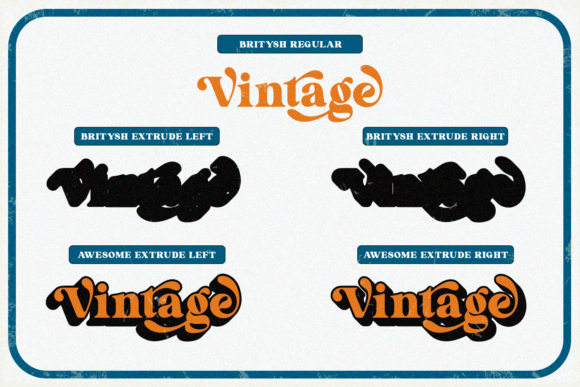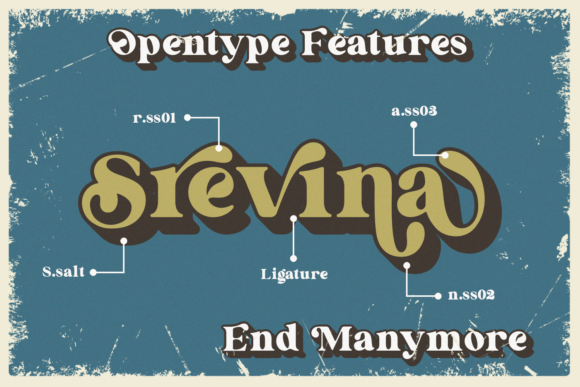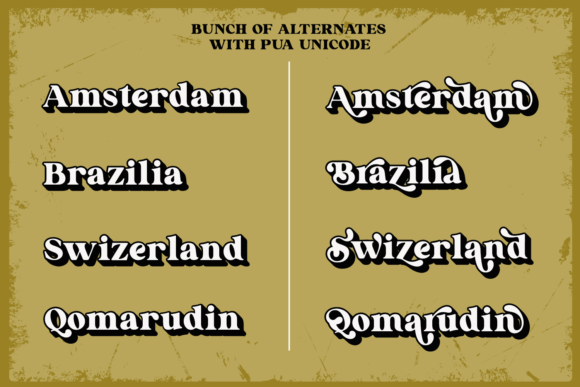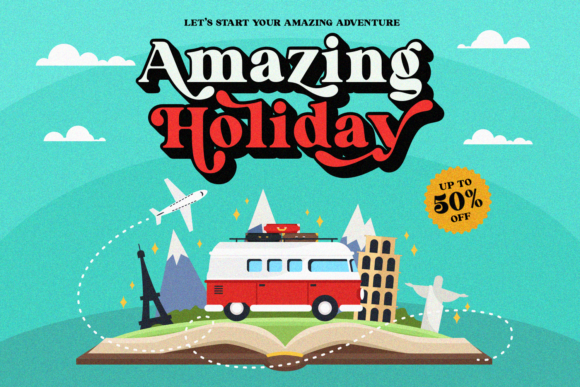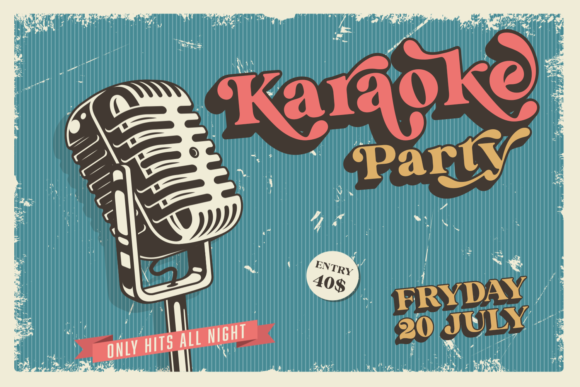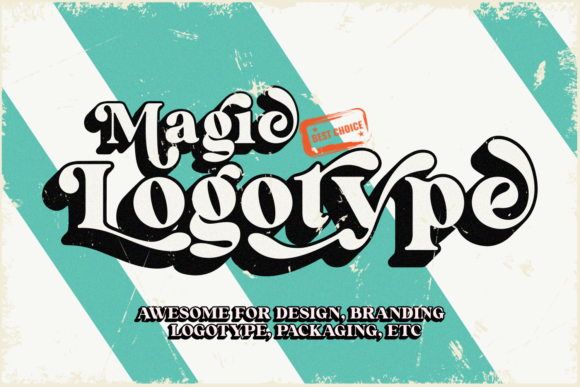
Introducing Britysh Font: A Bold and Retro Styled Display Font
Are you looking for a font that can add a touch of nostalgia and personality to your designs? Look no further than Britysh Font, a bold and retro styled display font that’s perfect for designers and crafters alike. In this article, we’ll take a closer look at Britysh Font, its features, and how you can use it to elevate your designs.
What is Britysh Font?
Britysh Font is a bold and retro styled display font that’s designed to make a statement. Its strong, confident, and dynamic design makes it perfect for adding a touch of nostalgia to your designs. Whether you’re working on a branding project, a poster, or a social media graphic, Britysh Font is sure to grab attention.
Key Features of Britysh Font
- Bold and Retro Style: Britysh Font has a bold and retro style that’s reminiscent of classic designs from the past.
- PUA Encoded: Britysh Font is PUA (Private Use Area) encoded, which means you can access all glyphs and swashes with ease.
- Dynamic and Confident: Britysh Font reads as strong, confident, and dynamic, making it perfect for designs that need to make a statement.
- Nostalgic Character: Britysh Font has a nostalgic character that can add a touch of personality to your designs.
How to Use Britysh Font
Britysh Font is perfect for a variety of design projects, including:
- Branding: Use Britysh Font to create bold and eye-catching logos that make a statement.
- Posters: Add a touch of nostalgia to your posters with Britysh Font’s retro style.
- Social Media Graphics: Use Britysh Font to create engaging social media graphics that grab attention.
- Signage: Britysh Font is perfect for creating eye-catching signage that stands out.
Benefits of Using Britysh Font
There are many benefits to using Britysh Font in your designs, including:
- Unique and Eye-Catching: Britysh Font is a unique and eye-catching font that can help your designs stand out.
- Nostalgic Feel: Britysh Font has a nostalgic feel that can add a touch of personality to your designs.
- Easy to Use: Britysh Font is PUA encoded, making it easy to access all glyphs and swashes.
- Versatile: Britysh Font is perfect for a variety of design projects, from branding to signage.
Tips for Getting the Most Out of Britysh Font
Here are a few tips for getting the most out of Britysh Font:
- Experiment with Different Sizes: Britysh Font looks great in a variety of sizes, so experiment with different sizes to find the one that works best for your design.
- Pair with Other Fonts: Britysh Font pairs well with other fonts, so try pairing it with a sans-serif font for a bold and modern look.
- Use Swashes and Glyphs: Britysh Font has a range of swashes and glyphs that can add a touch of personality to your designs.
Britysh Font is a bold and retro styled display font that’s perfect for designers and crafters alike. Its strong, confident, and dynamic design makes it perfect for adding a touch of nostalgia to your designs. With its PUA encoding and range of swashes and glyphs, Britysh Font is easy to use and versatile. Whether you’re working on a branding project, a poster, or a social media graphic, Britysh Font is sure to grab attention.